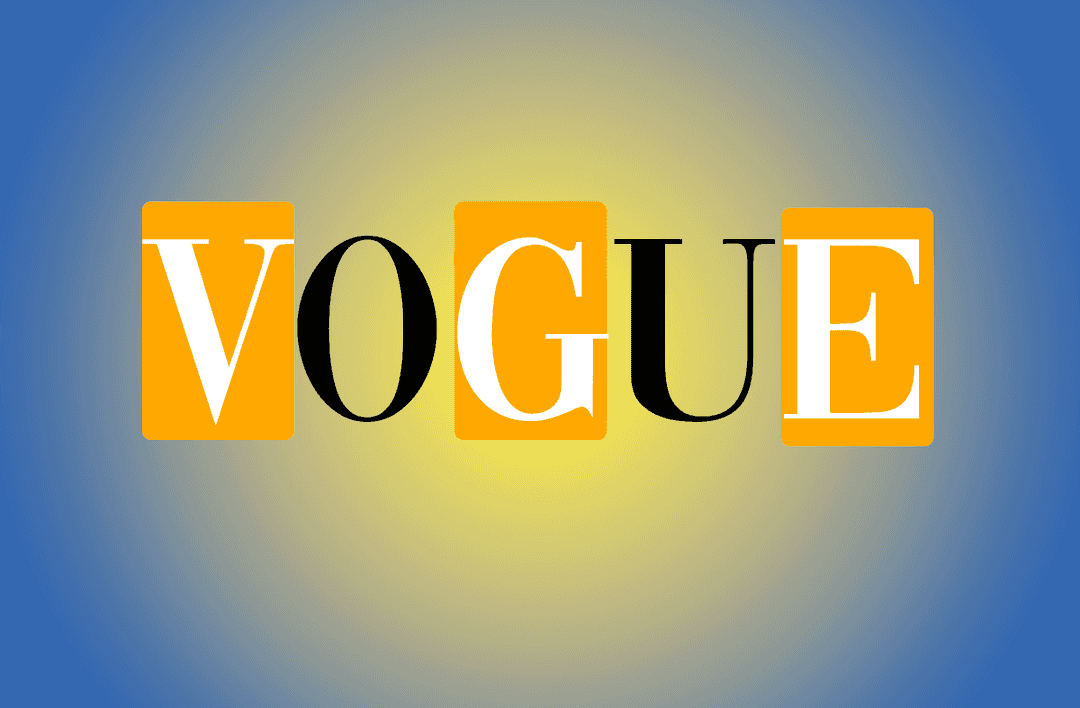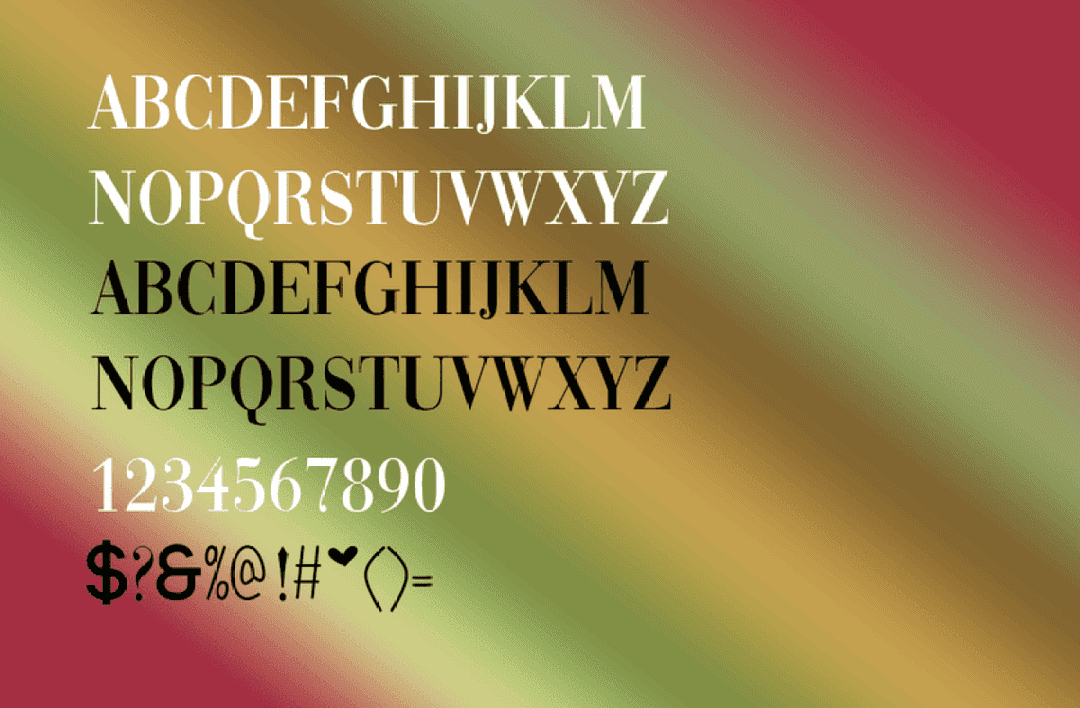
Vogue is somewhat an exquisite, classy, and sophisticated serif font that derives its influence from the logos of some fashionable magazines. Stylish font for titles and logos and also for posters or any other creative work.